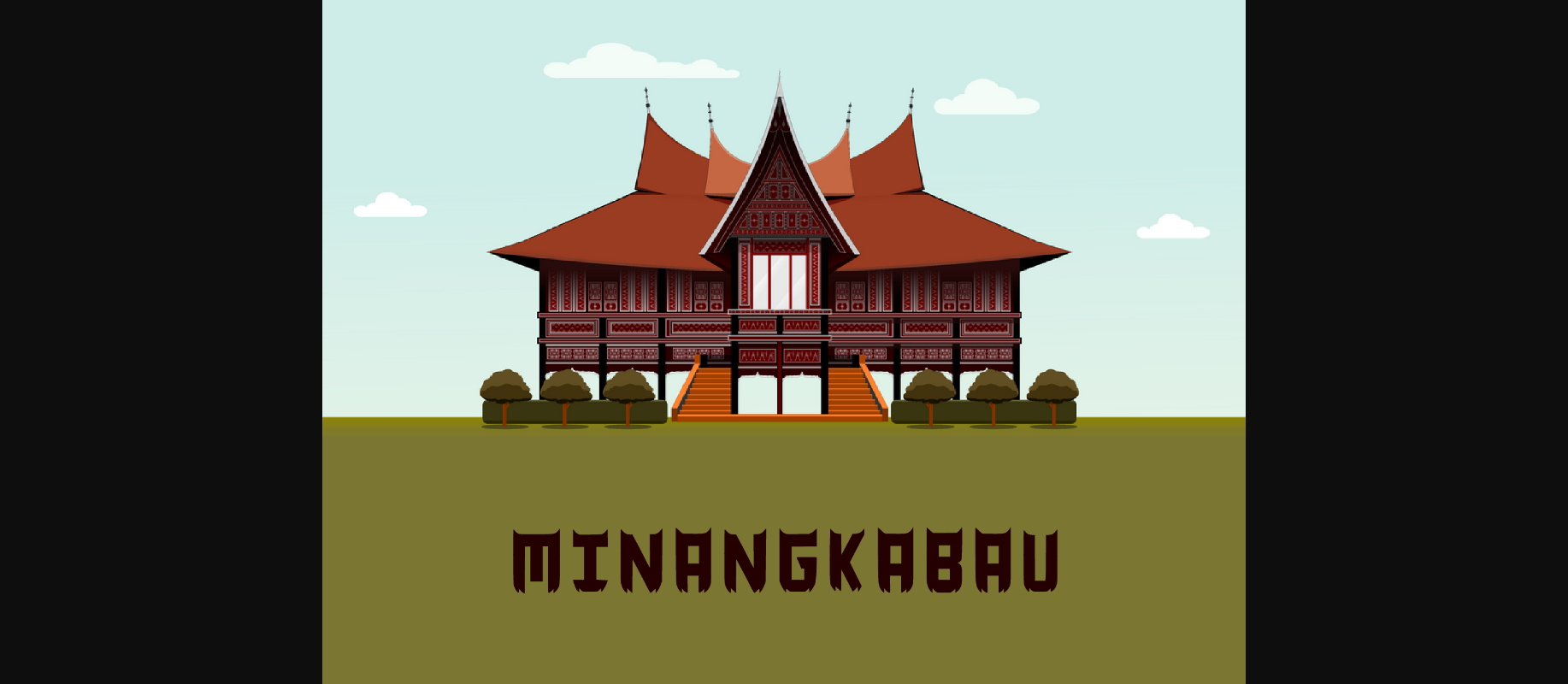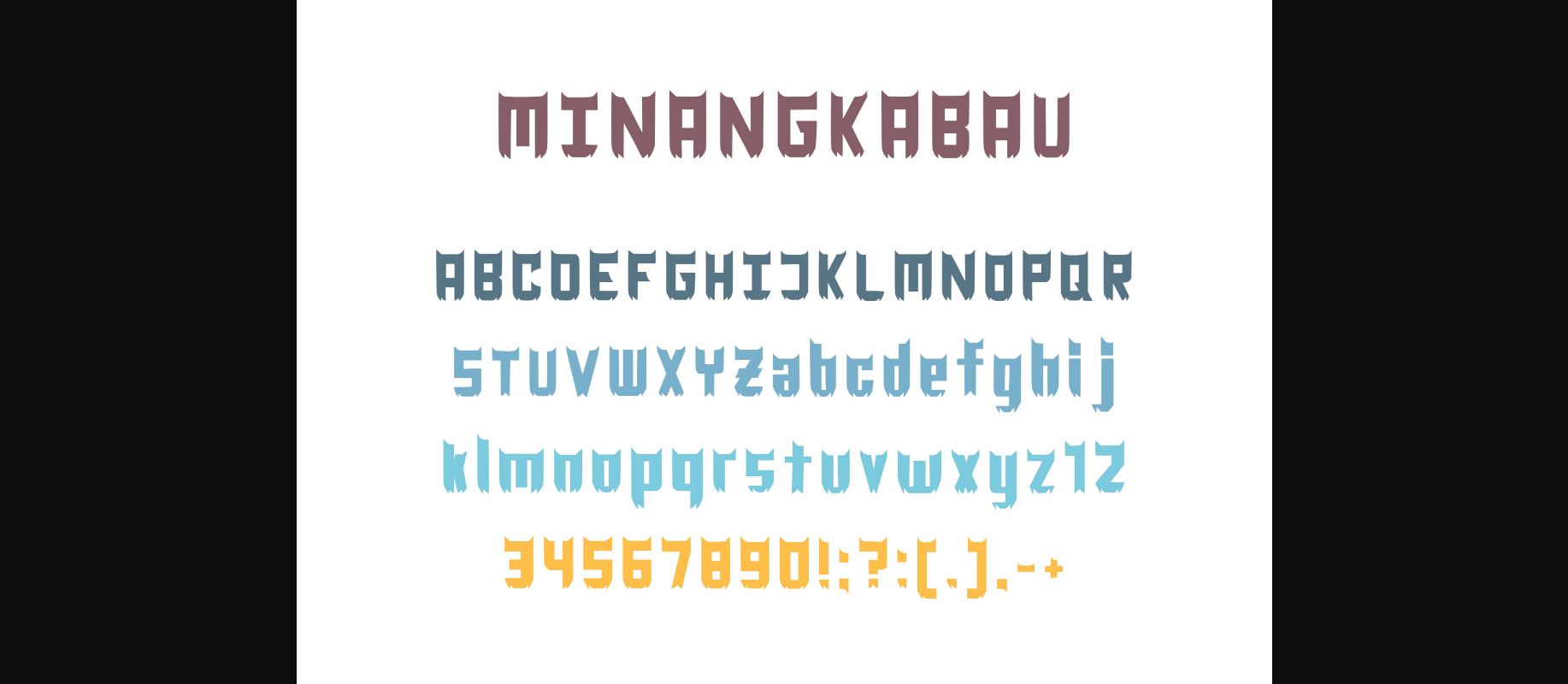
Minangkabau Font
About Minangkabau Font
Minangkabau typeface is inspired by the roof of the Gadang house which is curved and pointed upwards. The inside of the middle of several box-shaped type faces is inspired by the box window of the Gadang house. The lower part of each typeface is the roof of the Gadang house which is curved and pointed upwards, which intersects each bottom of the typeface.